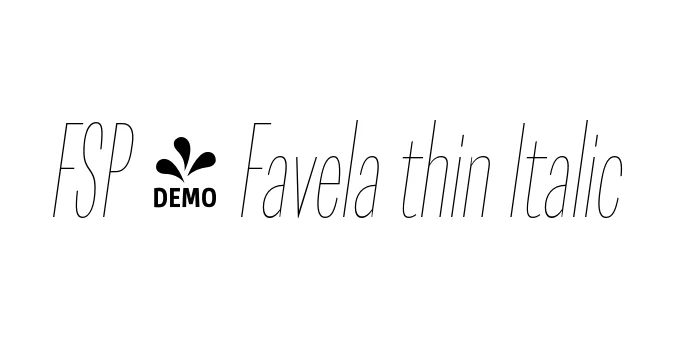
FSP - Favela thin Italic
Designed by Mateusz Machalski
| Category | Geometric Sans Serif |
| Designer | Mateusz Machalski |
Favela Thin Italic is a contemporary geometric sans-serif typeface designed by the renowned Polish typographer Mateusz Machalski. This specific weight belongs to the larger Favela superfamily, which is characterized by its modular structure and architectural precision. The Thin Italic variant provides a sleek, slanted profile that exudes elegance and modernism, making it a standout choice for designers looking for a sophisticated yet minimalist aesthetic.
The typeface was inspired by urban structural grids and modern geometric forms, resulting in a clean layout with distinctive character shapes. Favela is highly versatile, featuring a wide range of OpenType characters and multilingual support. It is particularly effective in environments where clarity and a high-end feel are paramount, bridging the gap between technical construction and artistic expression.
FSP - Favela thin Italic Best Uses
Sophisticated pull quotes and high-end magazine body text.
Luxury fashion labels and modern tech startup identities.
Clean hero headers and minimalist navigational elements.
Elegant print ads and sleek promotional banners.